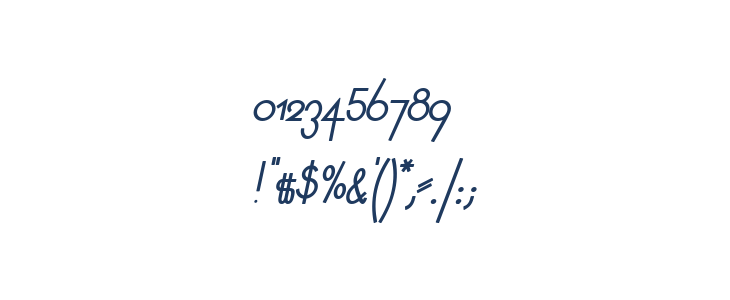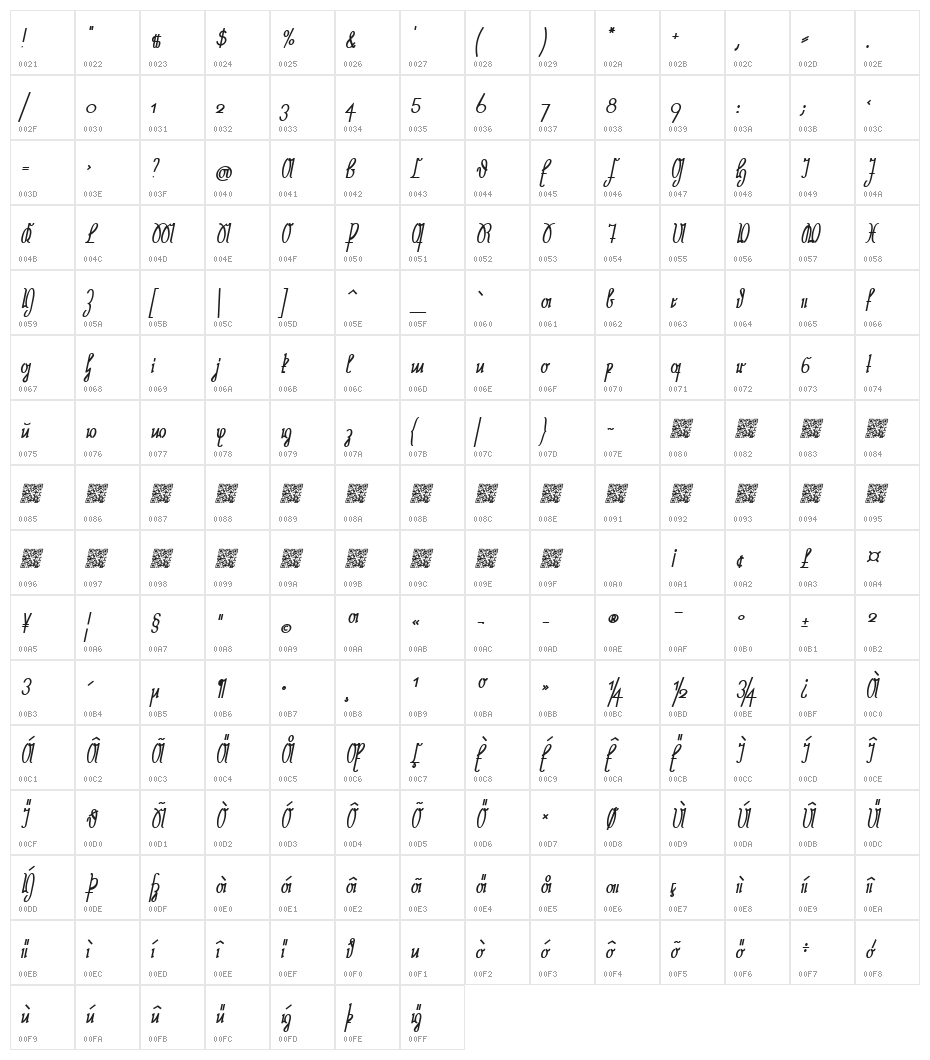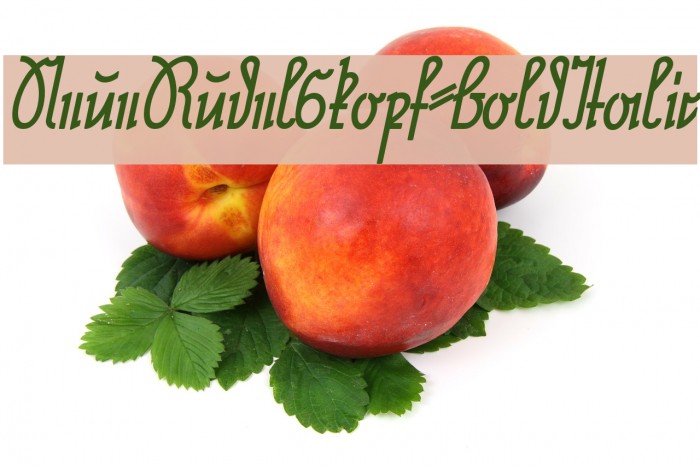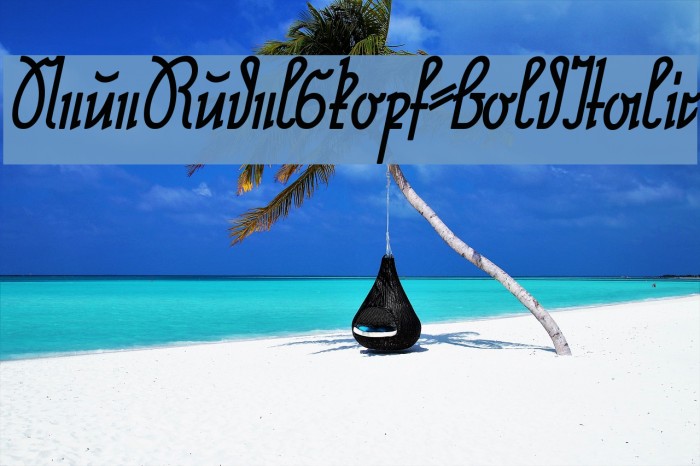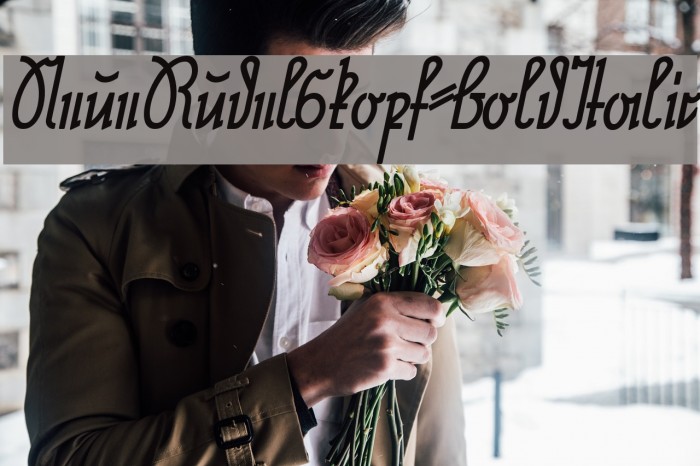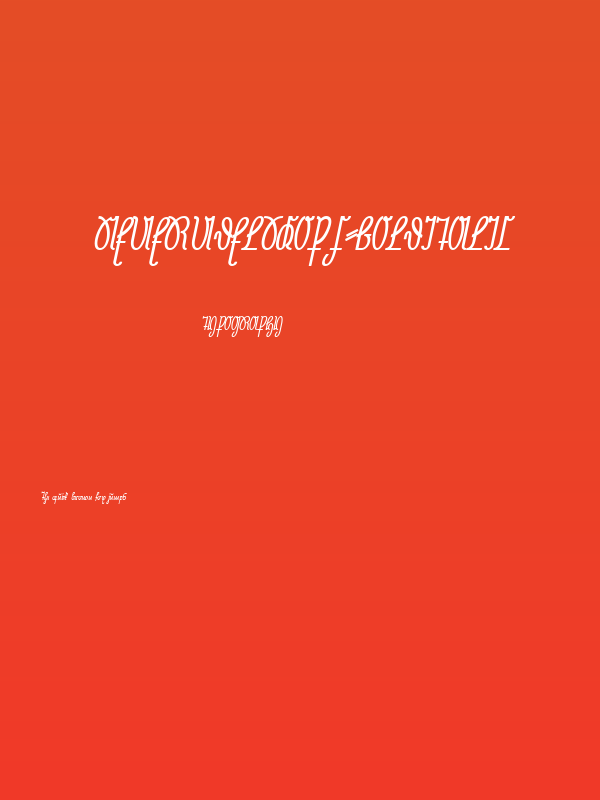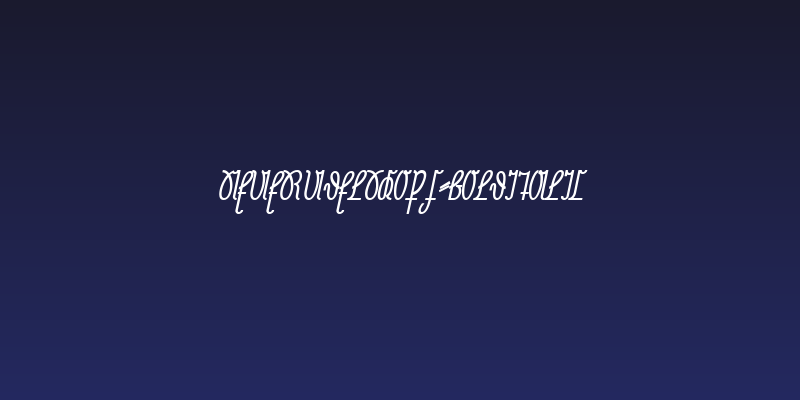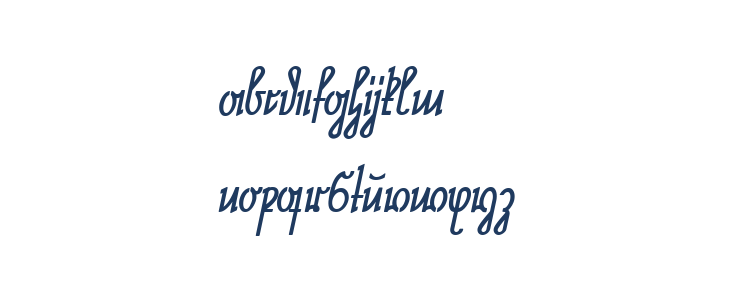
NeueRudelskopf-BoldItalic Font
NeueRudelskopf-BoldItalic Description
This font exhibits a dynamic and flowing script style, characterized by its bold and italicized form. The letters are elegantly connected, creating a sense of movement and fluidity. The uppercase letters are tall and slightly narrow, while the lowercase letters maintain a consistent slant, enhancing the cursive appearance. The numerals are distinct and maintain the same slanted style, ensuring consistency throughout. Special characters are integrated seamlessly, complementing the overall aesthetic. This font's boldness and italicization make it stand out, offering a unique blend of readability and artistic flair.